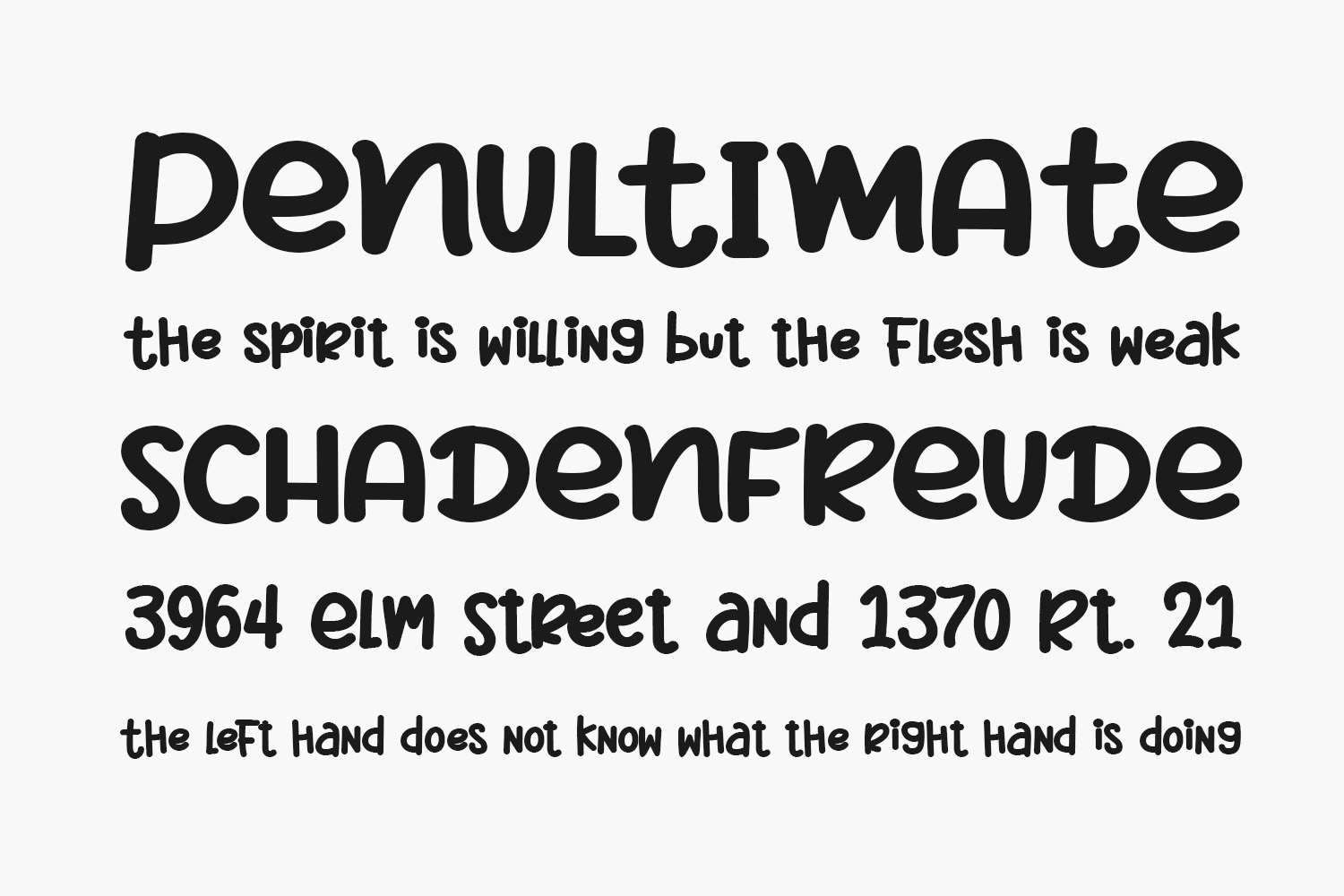
Christmas Sheep Free Font is a modern and cute handwritten font. It embodies playfulness and authenticity and is the perfect choice for any children’s activity, school project, or Christmas letter. Christmas Sheep Free Font was designed by Stefani Letter and is free for personal use only. Please purchase the full version for commercial use.